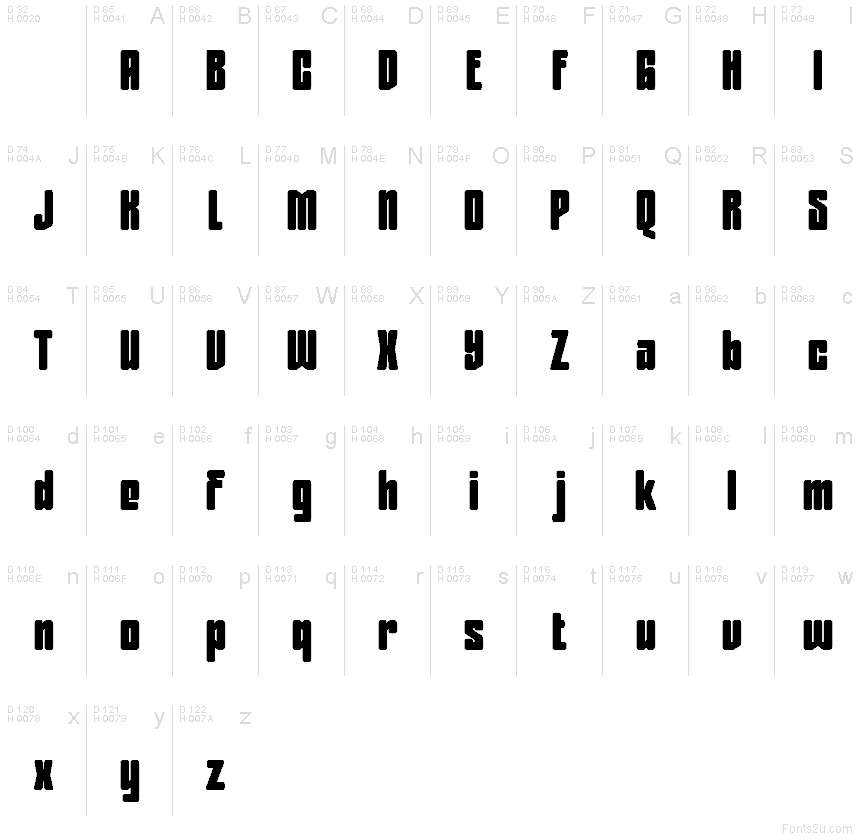
CS Glaven Regular Demo
CS Glaven font by Craft Supply Co. is a retro display font with a bold weight and condensed width. This rounded geometric typeface gives off a modern aesthetic with futuristic vibes inspired by technology. While the characters are neat and minimalistic, some of their lines have an artistic futuristic touch like sharp edges and curved profiles.
CS Glaven is great for headlines, headers, posters, flyers, motion graphics artworks, labels design and other vintage-themed projects. Use it in branding designs for the logo or packaging especially food and drink packaging. Even vintage movie titles can be done using this free rounded display typeface!